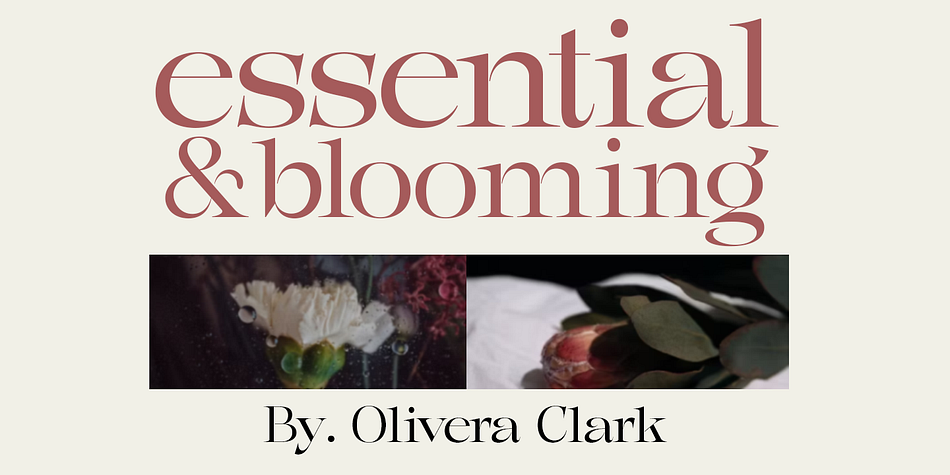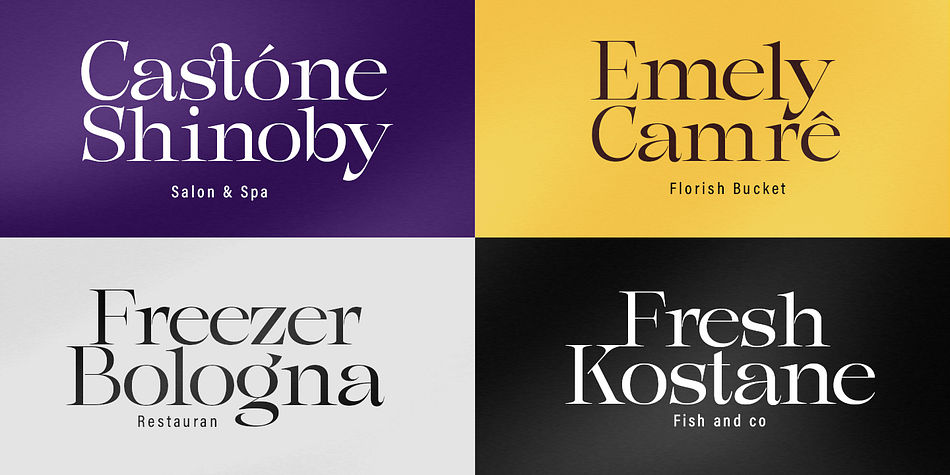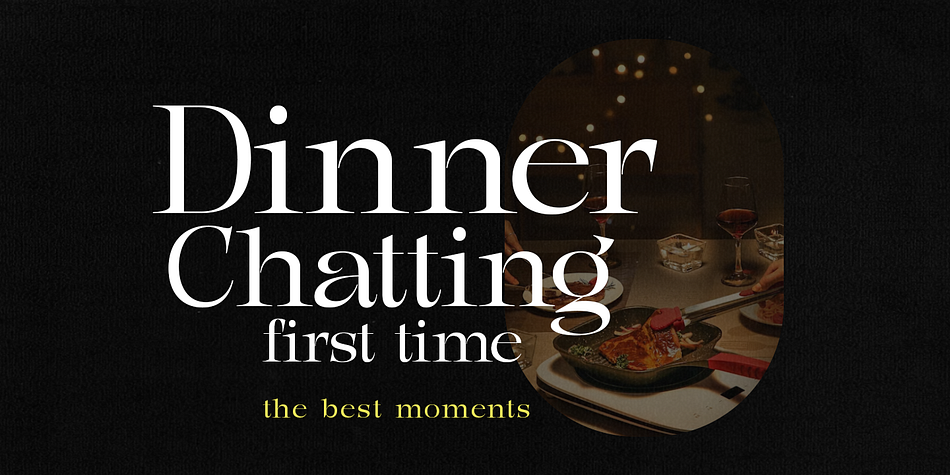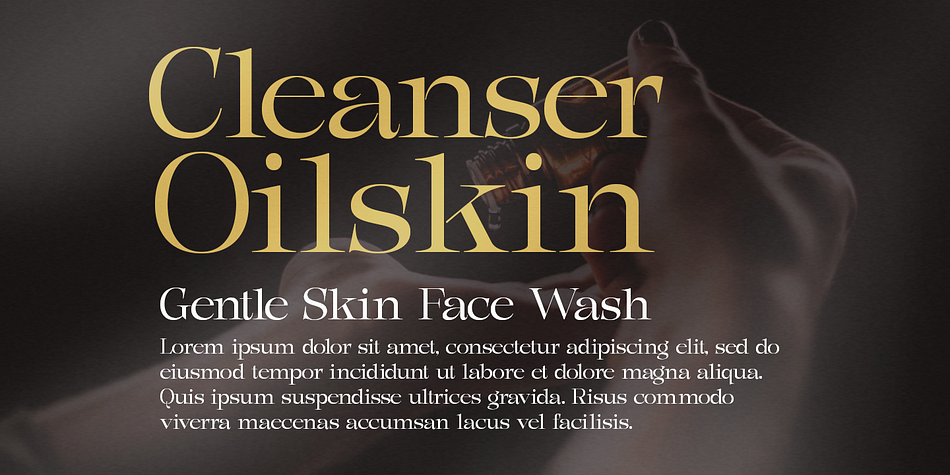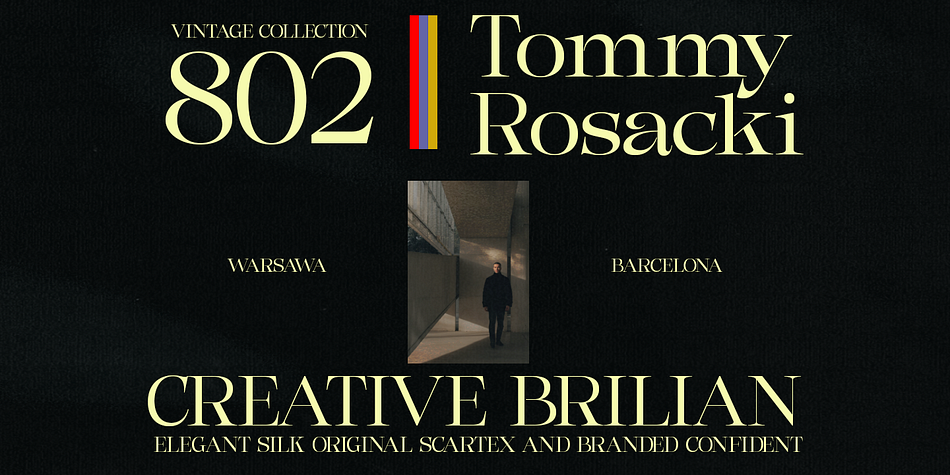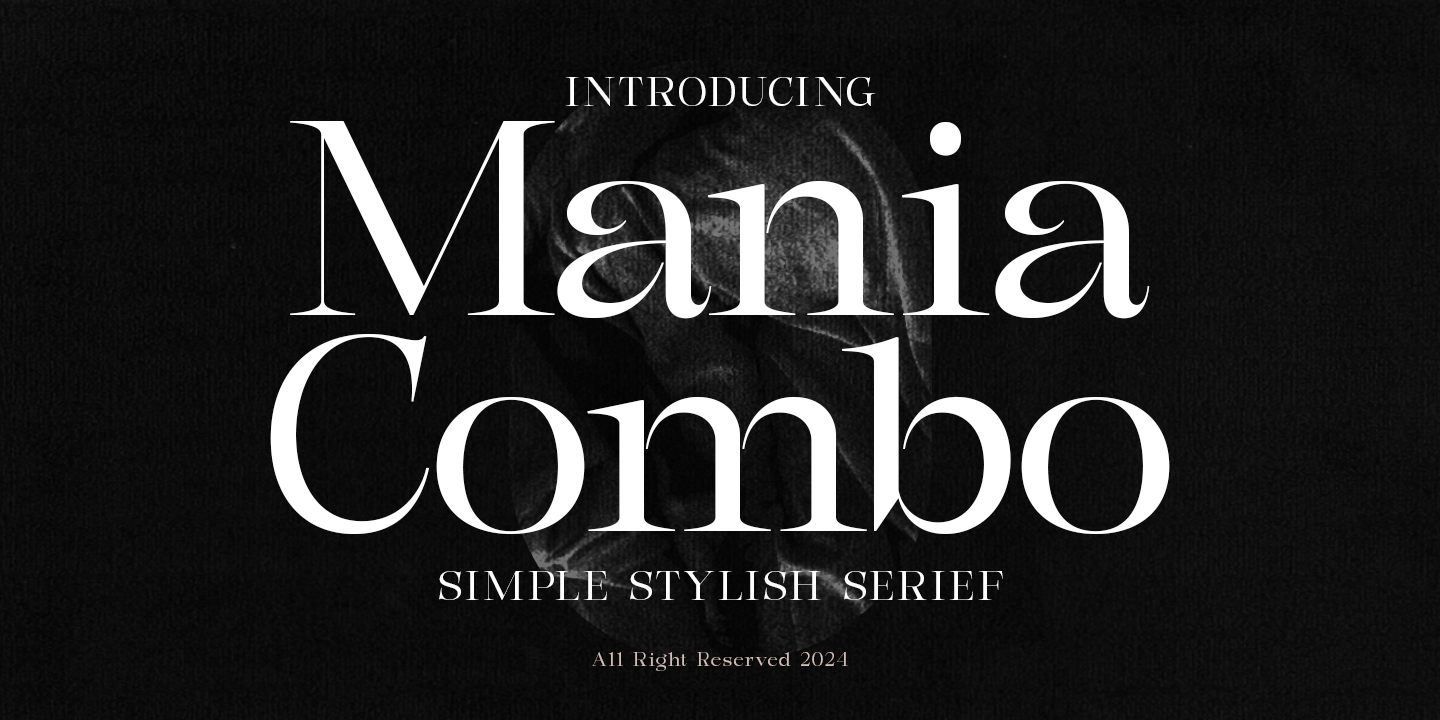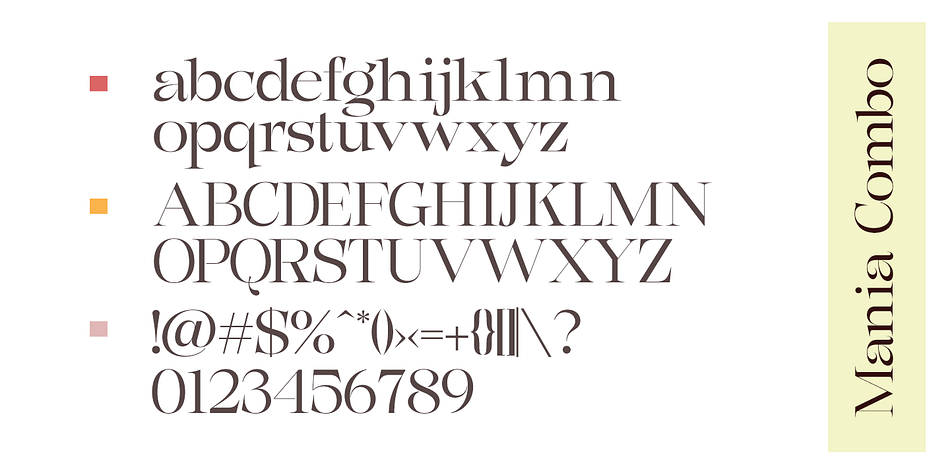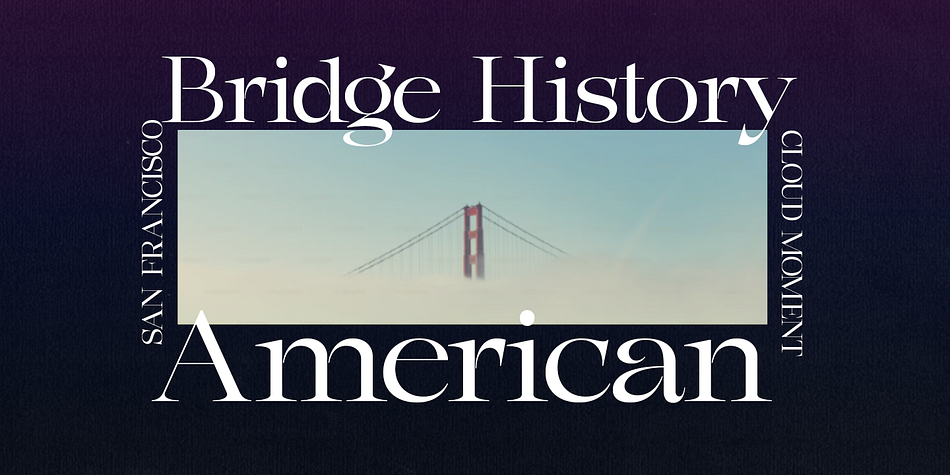
Mania Combo
Mania Combo is a serif font family published by Gatype.
The Mania Combo is stylish with extreme cuts, sharp angles and interactive straps. Characters that seem solid are spread across each replacement letter, with different styles and maximum personality. The separation of bold character and standards that are considered binding creates a type that is solid, modern and attractive. Suitable for logos, emblems, magazines, quotes etc.
Mania Combo serif style is a modern Display font, each letter is carefully crafted to make your text look unique.